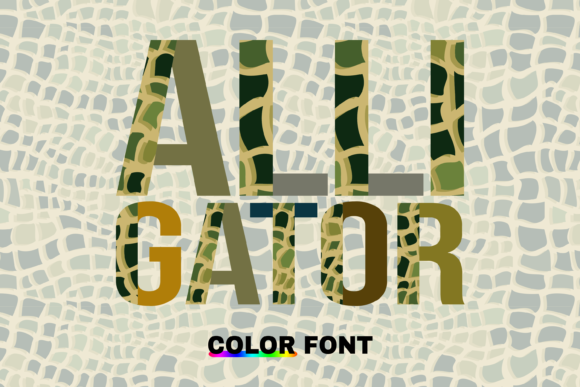
The Alligator Font: A Perfect Companion for Your Creative Projects
Have you ever been in the middle of a design project, and suddenly, you just can’t seem to find the right font? I recall a particularly frustrating experience while working on a custom wedding invitation. My client wanted something unique, something that would make their special day stand out. After hours of scouring font libraries, I stumbled upon the Alligator Font. It was love at first sight! With its duo styles (black & color) designed to complement each other perfectly, I knew I had found the perfect match.
An Honest Review of Alligator Font
• ✨ Versatility: The Alligator Font comes in two styles that can be used together or apart, making it incredibly versatile for various design projects.
• 💡 Unique Designs: The font’s distinctive style adds a lovely touch to any creation, making it ideal for custom designs, DIY crafts, and more.
🤔 Another consideration is that, as a color font, it might require a bit more experimentation to get the desired effect, especially if you’re new to working with OpenType features and glyphs.
The Backstory Behind Alligator Font
The Alligator Font was designed with creativity and versatility in mind. The designer aimed to create a font that could easily complement a wide range of projects, from DIY crafts to professional design work. Inspired by the playful and sometimes whimsical nature of alligators, the font embodies a sense of fun and adaptability.